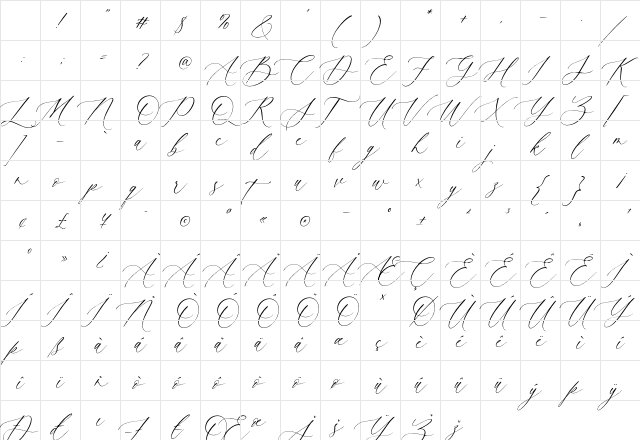
Complete Vintage Loving Regular glyph index. Displaying only characters natively supported by Vintage Loving Regular font.
Vintage Loving wears its vintage influences proudly, with letterforms that recall mid-century signage, classic packaging, and nostalgia-driven design.
Font Pairing: Combine Vintage Loving with a simple slab or neutral sans - period-accurate companions reinforce the vintage feel without competing for attention.
Pro Tip: Lean into Vintage Loving's period character by pairing it with aged paper textures, muted colour palettes, and vintage illustration styles.